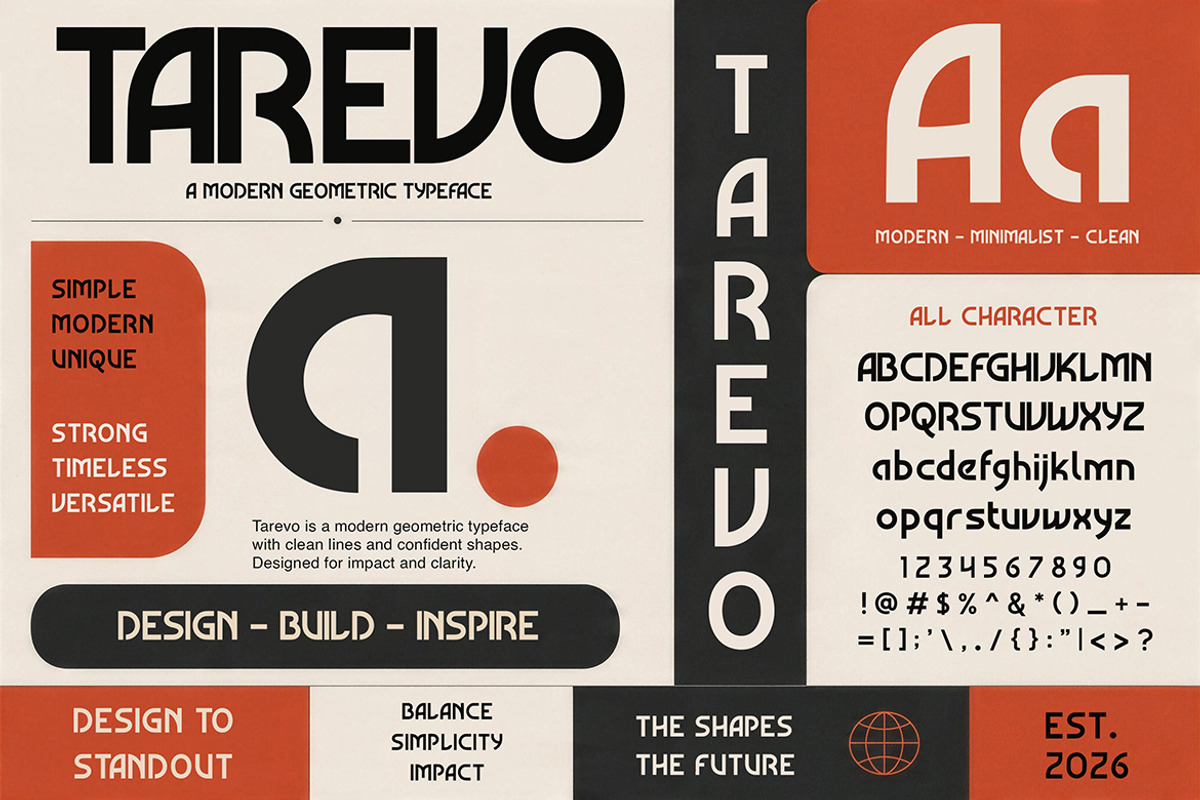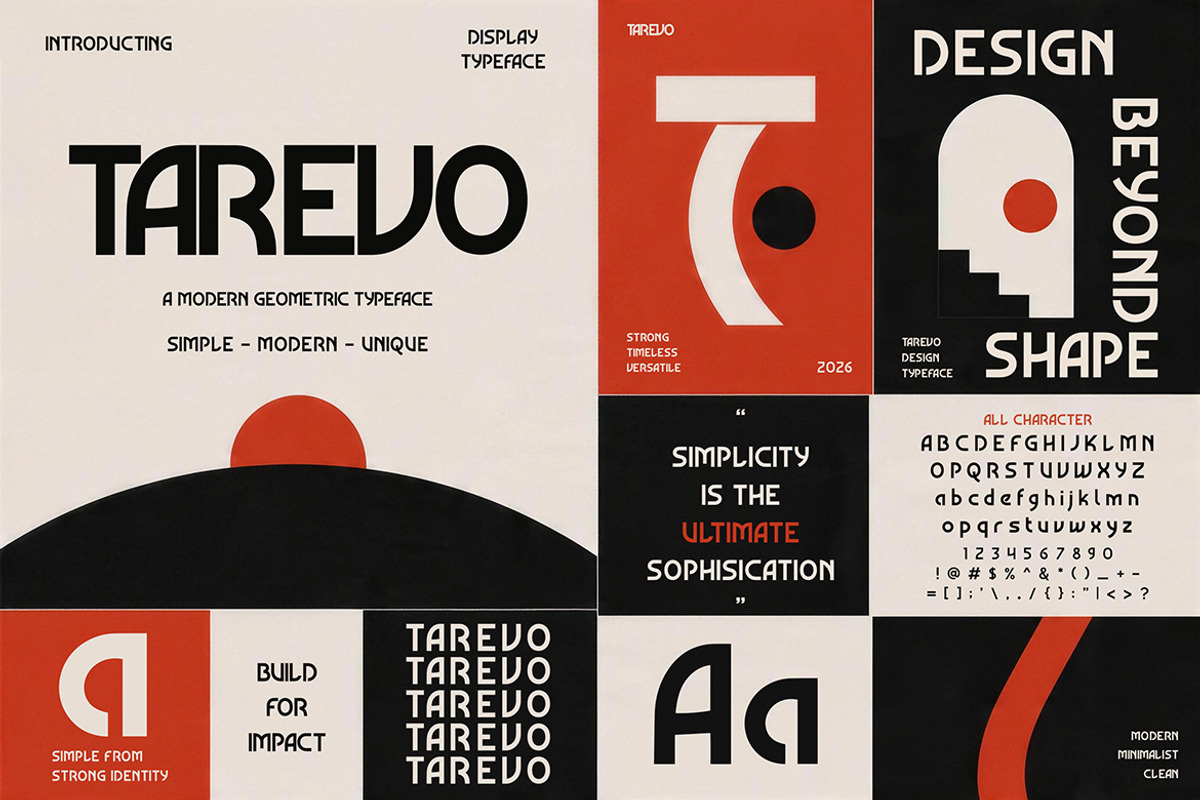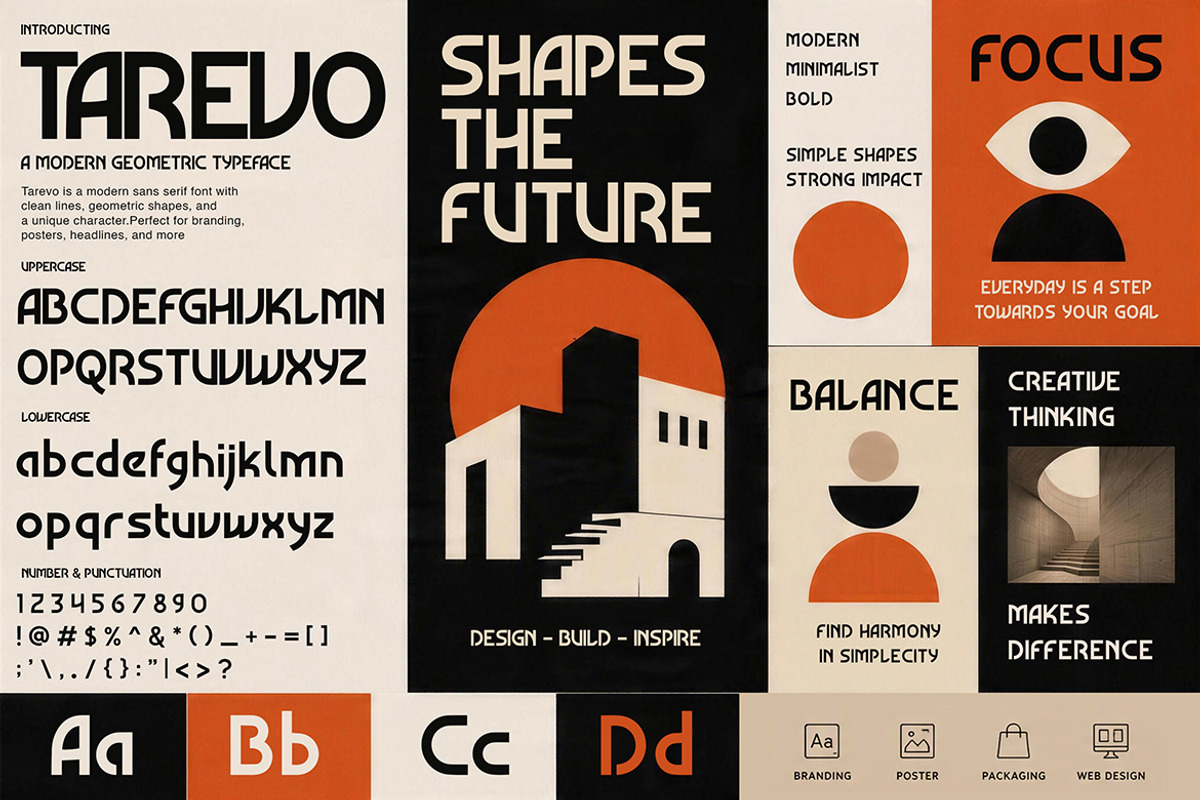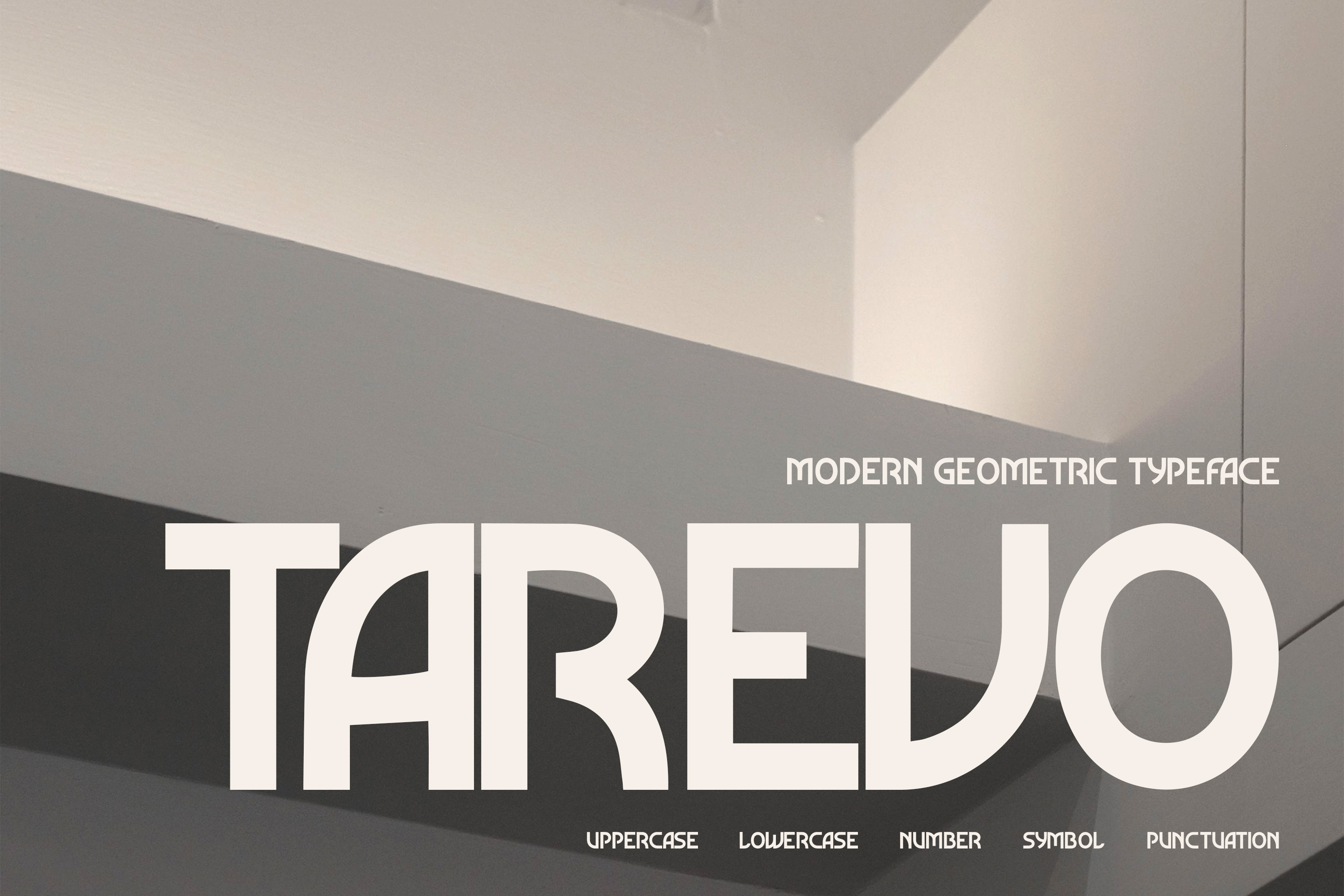
Tarevo - Modern Geometric Typeface
Tarevo is a modern geometric sans serif font featuring clean lines, unique shapes, and a futuristic minimalist character. Designed with a balanced combination of simplicity and strong visual identity, Tarevo creates a sophisticated look for contemporary design projects. Its distinctive geometric forms make it ideal for branding, posters, headlines, packaging, and modern visual identities that require a stylish and memorable appearance.
Modern branding and logo design
Poster and headline layouts
Packaging and product design
Web design and digital interfaces
Editorial and creative visual projects
Tarevo is a versatile geometric typeface that brings a clean, futuristic, and creative aesthetic to professional design projects.